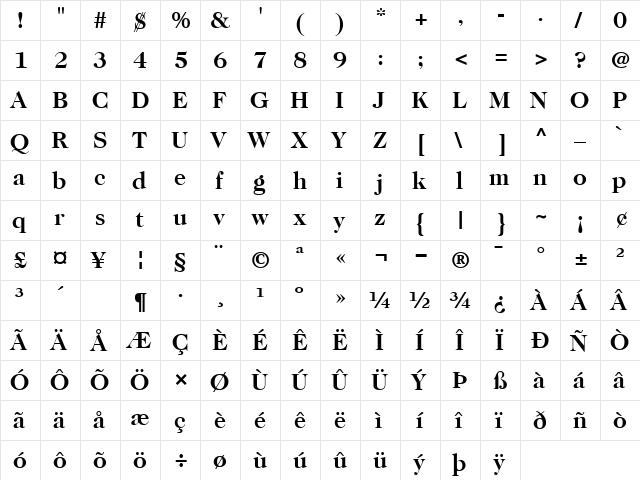
CaslonTwoTwentyFour Bold Font Preview
CaslonTwoTwentyFour Bold
CaslonTwoTwentyFour Bold Font Details
Design Context for CaslonTwoTwentyFour Typeface
CaslonTwoTwentyFour takes a measured approach to typography — its balanced proportions and neutral character make it a reliable workhorse for both digital and print work. Its bold stroke weight gives it real presence on the page.